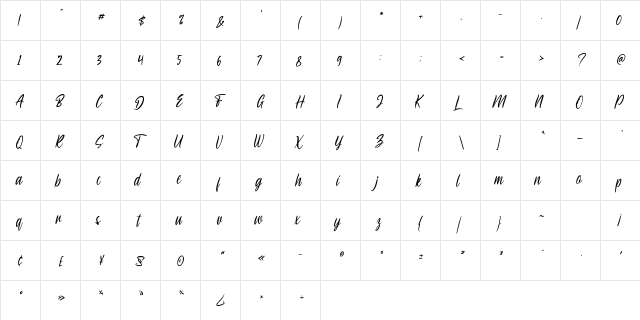
Sheltone Regular
Design Context for Sheltone Typeface
Sheltone is a composed and adaptable typeface that performs quietly and consistently across a wide range of design contexts.